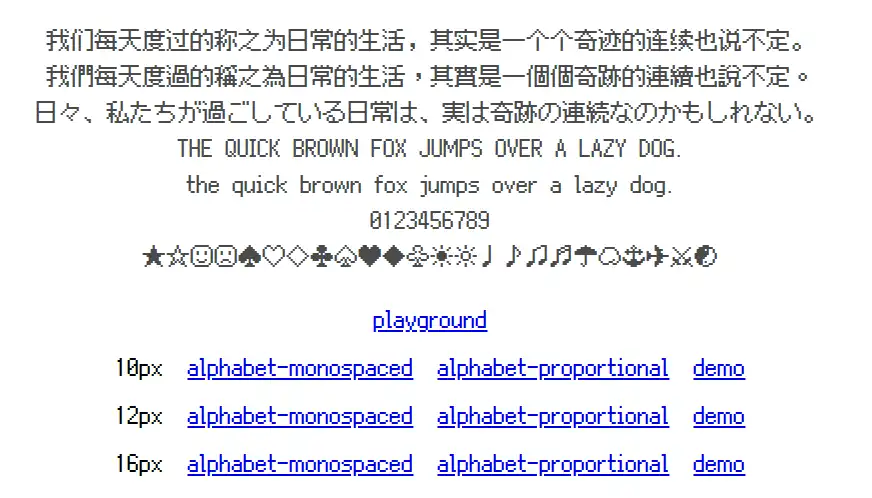
Ark Pixel Font
Ark pixel font - Open source Pan-CJK pixel font / Ark pixel font - Open source Pan-CJK pixel font. An open-source pan-Chinese-Japanese-Korean pixel font. 10, 12 and 16 pixels are supported. The goal is to provide an out-of-the-box pixel font solution for game development that can be used for text. This project not only provides all the glyph source files, but also provides the complete program needed to build the font. This font is still in early development and still lacks a large number of Chinese characters in all sizes. Among them, 12 pixels are the main development target. 10, 16 pixels are experimental. Efforts are currently underway to achieve the availability of 12 pixels under the GB2312 character set. We have a temporary interim solution available for production until the full font is available, check out the Stitcher Pixel Font project.
- Three pixel sizes of 10, 12 and 16 are currently supported
- Currently supports "Monospace" and "Proportional" modes
- Characters are full-width or half-width, and can be strictly aligned during typesetting
- The character width changes according to the actual situation of the glyph, and the baseline is in a suitable position